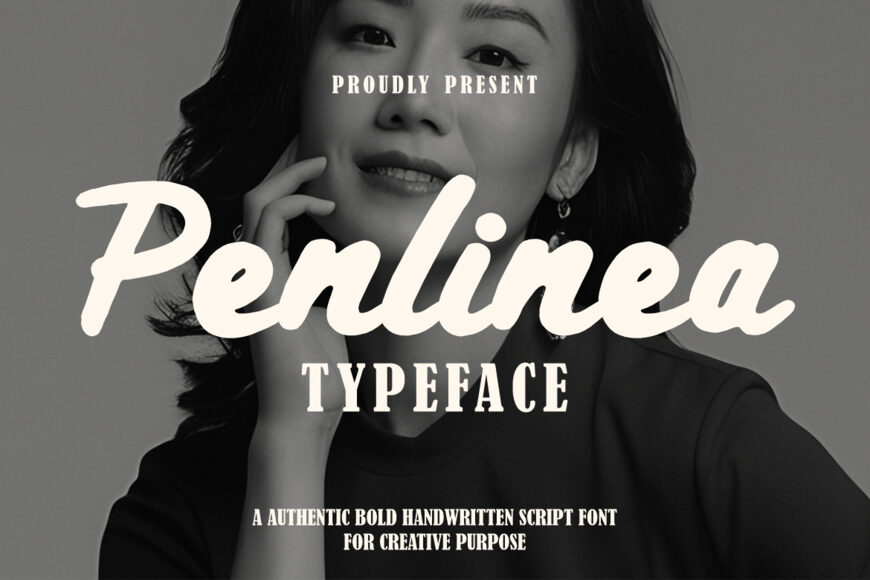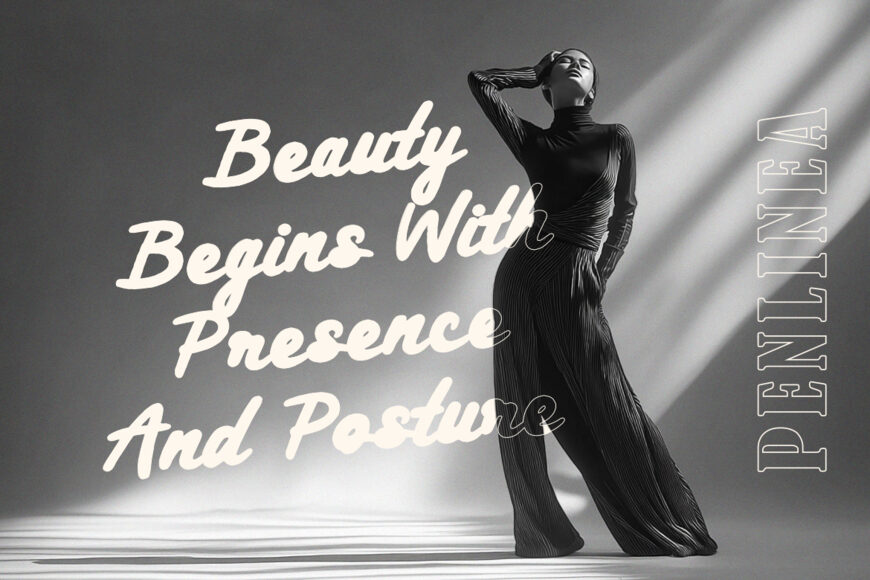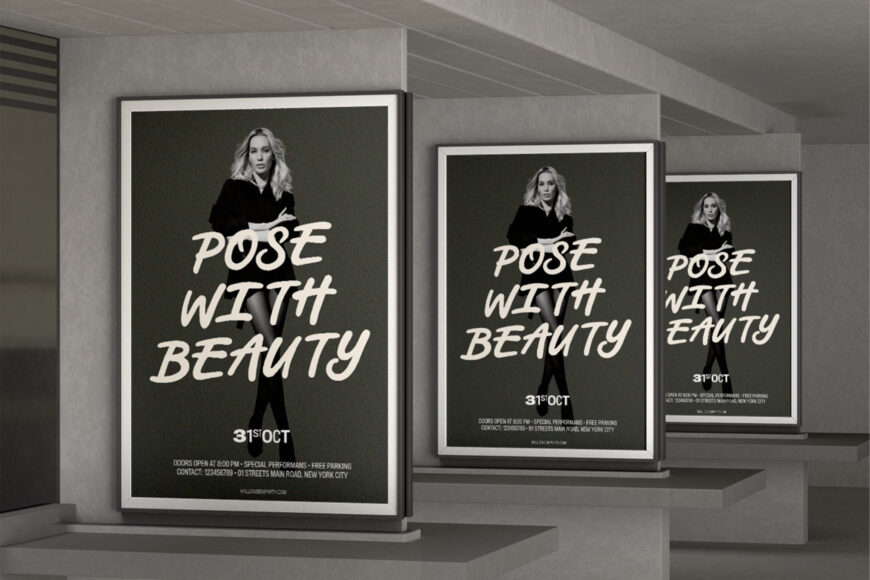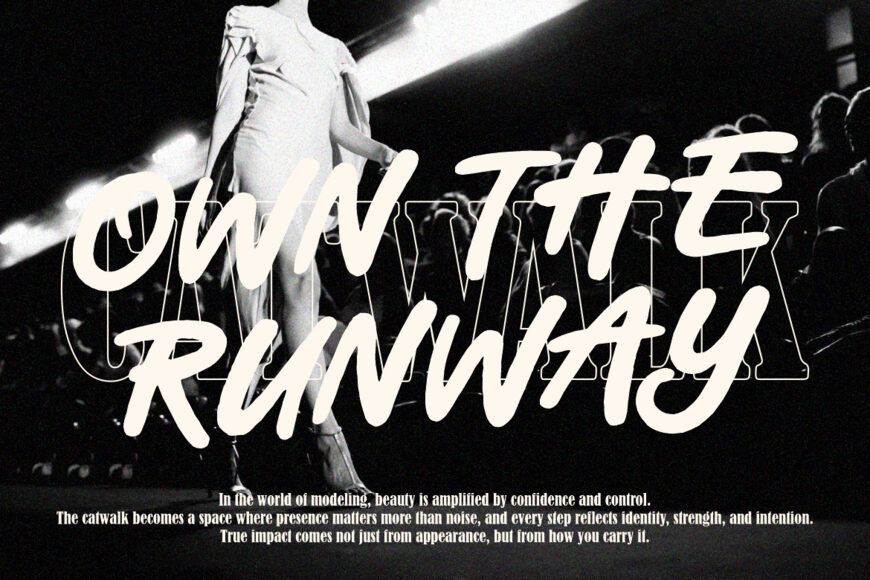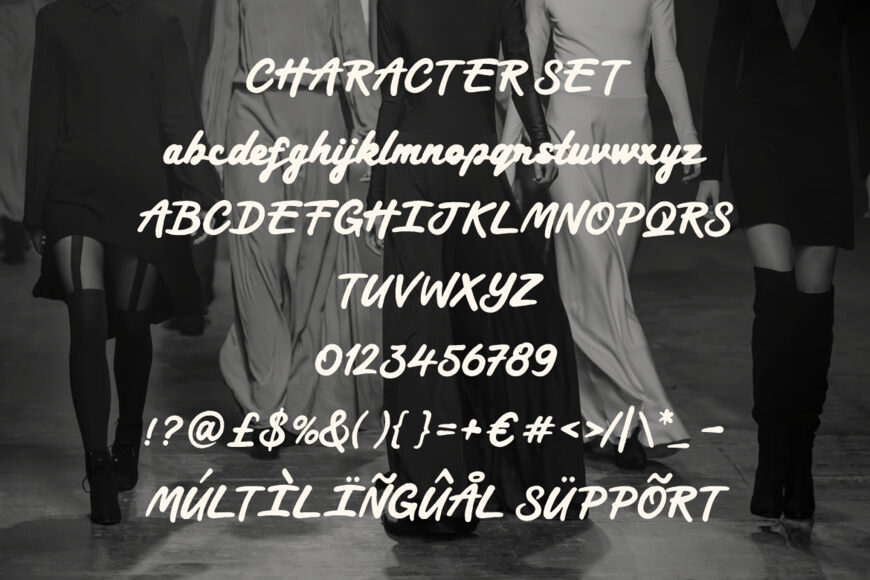
Penlinea is a modern brush script font defined by flowing, handwritten strokes and lively variation in thickness. Bold downstrokes contrast with delicate upstrokes, creating a smooth, confident rhythm. Its moderately tall letters feature elongated ascenders and graceful descenders, while softly textured endings add an authentic hand-painted feel.
Ideal for lifestyle, beauty, and personal storytelling brands, Penlinea suits logos, visual identities, and signature-inspired typography. Its expressive character also works beautifully for posters, editorial titles, and promotional materials.